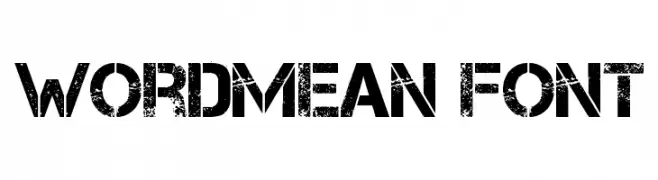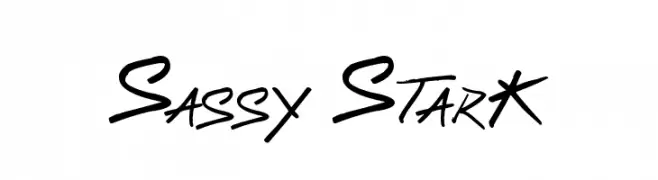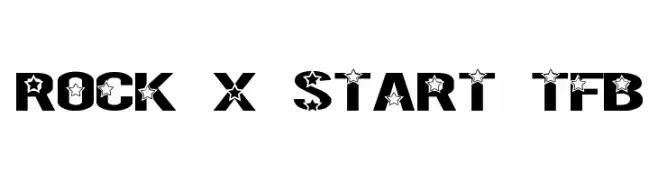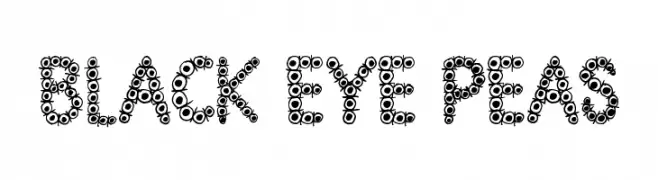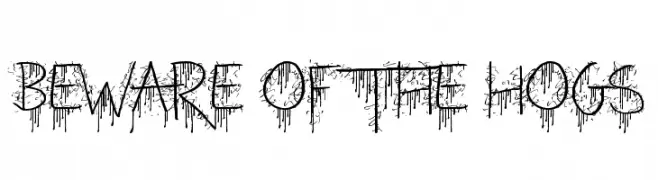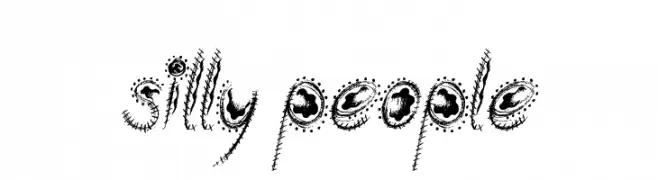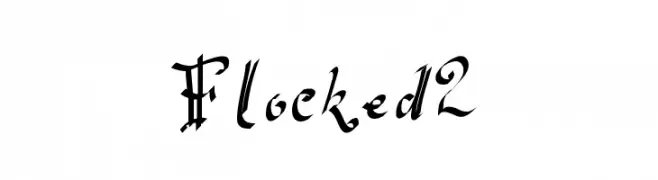
A dynamic, cursive font with an expressive, handwritten style.
A bold, distressed font with a grungy, textured appearance.
A bold, decorative font with star motifs integrated into each character.
A pixelated, retro-style font with a blocky, geometric design.
A bold, decorative font with textured lines and star accents.
A playful, circular-themed font with a bubbly and dynamic appearance.
A grunge-inspired font with dripping, chaotic strokes for a rebellious look.
A whimsical, hand-drawn style font with playful decorative elements.
An expressive, calligraphic font with bold, ornate characters.
A bold, outlined font with a modern, geometric style.
A playful, hand-drawn font with a 3D sketch effect.
A classic serif font with elegant, sharp lines and a Roman inscription style.
A bold, high-contrast serif font with a classic and elegant style.
A bold, classic serif font with high contrast and elegant serifs.
A bold, vintage-style font with strong, angular lines and a classic aesthetic.
A hand-drawn, vintage-style font with sketch-like, decorative elements.
A vintage-inspired font with a handcrafted, whimsical style.
Hand-drawn geometric shapes with playful, sketchy outlines.
A versatile set of arrow designs with varied styles and directions.
Elaborate ornamental dingbats with vintage flair.